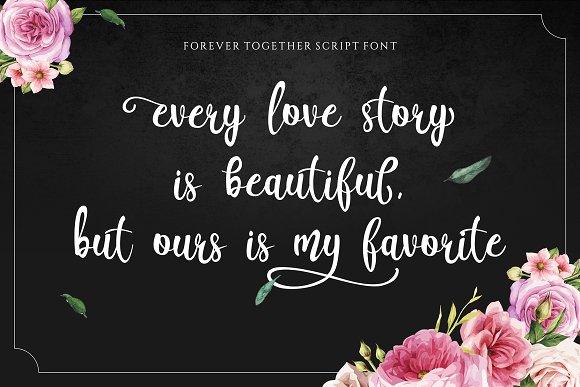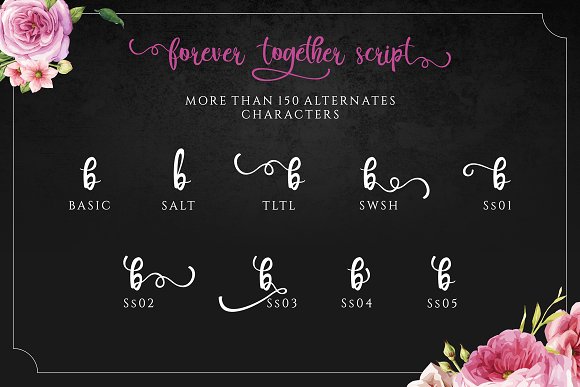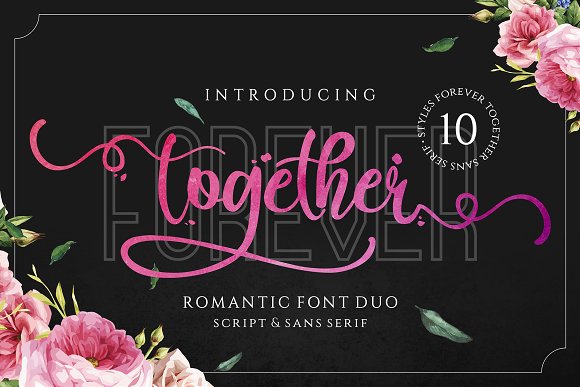
Forever Together – Romantic Font Duo
This is our newest product called Forever Together. This is a romantic font duo consisting of script fonts and sans serif can be paired with each other. Forever Together comes with Forever Together Script that contains tons of alternates and ligatures, and Forever Together Sans that contain 10 different styles. Forever Together is a really great font for a logo, clothing, wedding invitation, poster, and many others.